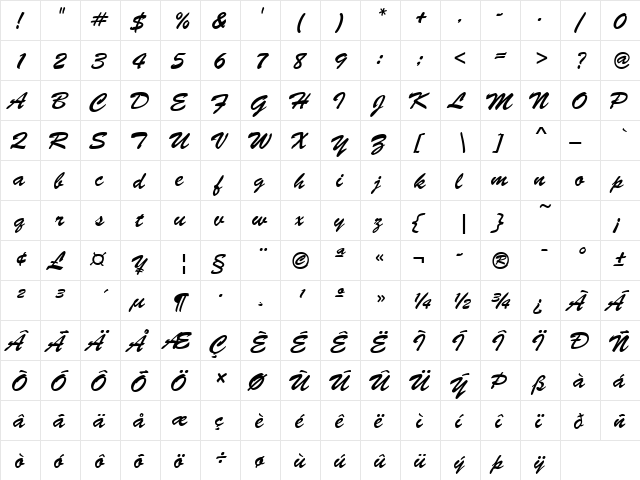
BrushScrJoiD Regular
Design Context for BrushScrJoiD Typeface
BrushScrJoiD flows with the natural rhythm of handwritten lettering, making it ideal for designs that call for warmth and personal expression.
Font Pairing: Combine BrushScrJoiD with a simple geometric sans for maximum contrast — the tension between flowing curves and clean structure is a classic typographic pairing.
Pro Tip: Pair BrushScrJoiD with a clean sans-serif for supporting text. The contrast between fluid script and geometric structure creates an elegant typographic hierarchy.